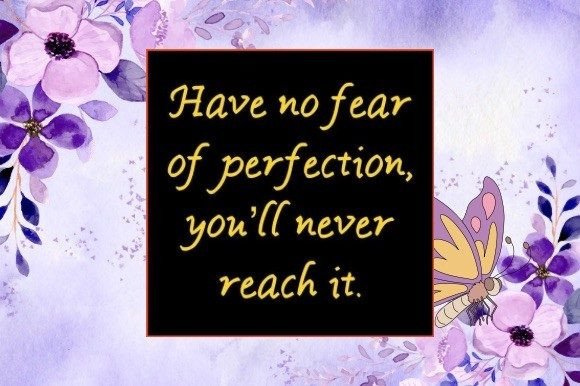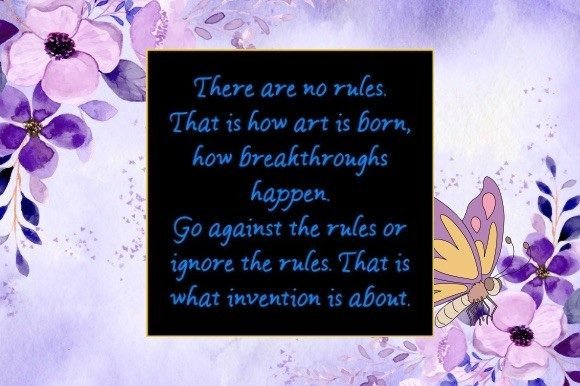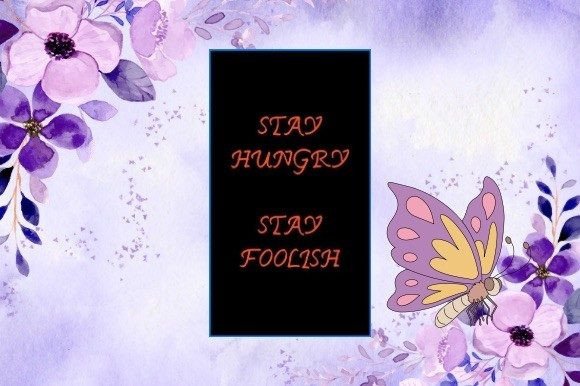
Introduction to Sn Ciila Font
As a designer, there’s nothing quite like that moment when a new project comes together – the colors align, the typography falls into place, and the entire design feels cohesive and beautiful. It’s a moment of pure creativity, and it’s exactly what the Sn Ciila Font is designed to inspire. With its adaptable and gorgeous visual charm, this free download has become a go-to resource for designers looking to elevate their designs to the next level.
Whether you’re working on a simple mug design or a complex wedding card, the Sn Ciila Font is the perfect tool to bring your creative project to life. Its high-quality design and transparent background make it easy to work with, and its versatility means you can use it for a wide range of projects.
- Features a unique, modern design that can add a touch of elegance to any project.
- Designed to be highly legible, even at small font sizes.
Honest Review: Sn Ciila Font
I recently came across the Sn Ciila Font while searching for a design resource for a creative project. I was impressed by its clean and elegant look, making it perfect for various design applications.
Here are some features that work well for this font:
- ✨ Beautifully designed characters with a modern twist.
Overall, I’m impressed with the Sn Ciila Font. Its high quality and modern design make it a great addition to any design project. While it may have some limitations, it’s a great free download for designers looking for a stylish font.
The Sn Ciila Font is a high-quality design resource that can be downloaded for free. This versatile font is perfect for creative projects that require a unique and elegant touch.
To get the most out of the Sn Ciila Font, use it on a transparent background to create a seamless design. This font is perfect for creating invitations, posters, and other creative projects that require a touch of elegance.
The Sn Ciila Font is commonly used for:
- Magazine and newspaper